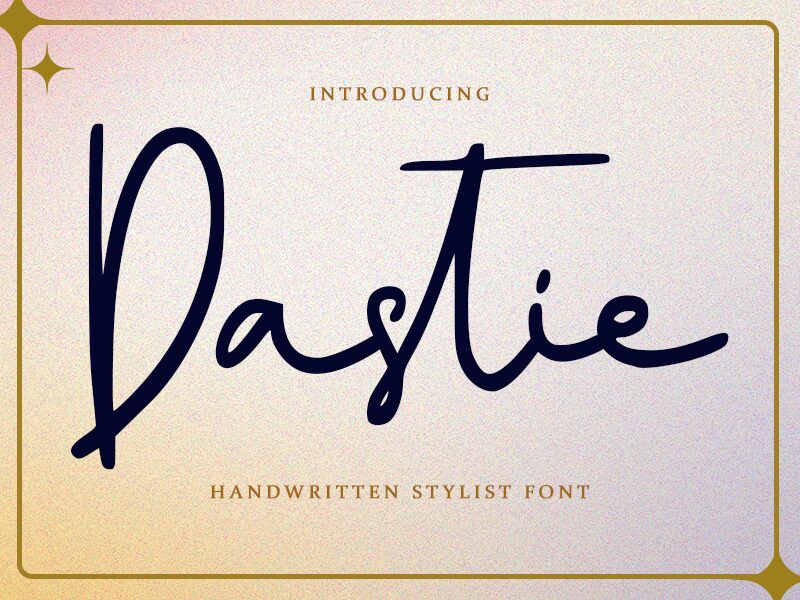
Dastie, a captivating handwritten signature-style font crafted by Alif Ryan Zulfikar of Sakha Design, exudes a distinct charm and elegance. This font's organic, fluid strokes convey a sense of warmth and authenticity, inviting the viewer to immerse themselves in its expressive nature. The seamless flow of its letterforms and the subtle variations in line thickness lend the Dastie font a natural, handcrafted appeal that effortlessly captures the essence of personal expression.
Dastie's versatility makes it a versatile choice for a wide range of design applications, from branding and packaging to invitations and editorial layouts. Its distinctive character lends itself particularly well to projects that require a touch of personalization, allowing designers to infuse their work with a sense of individuality and human connection.